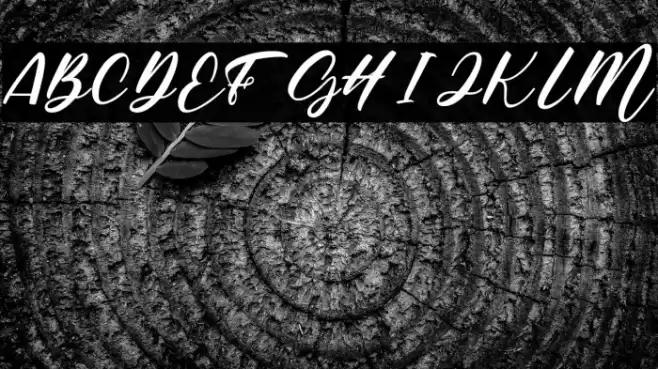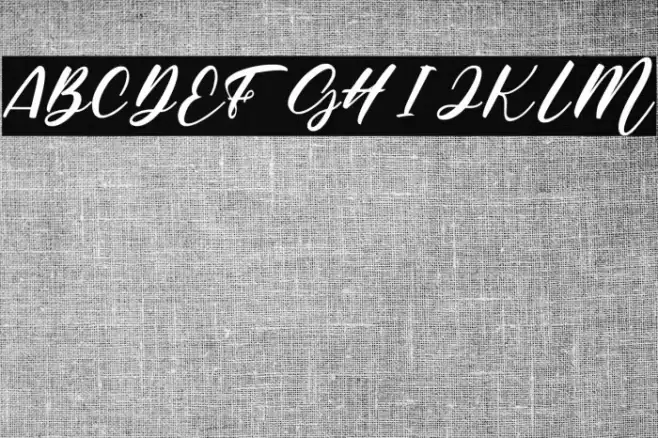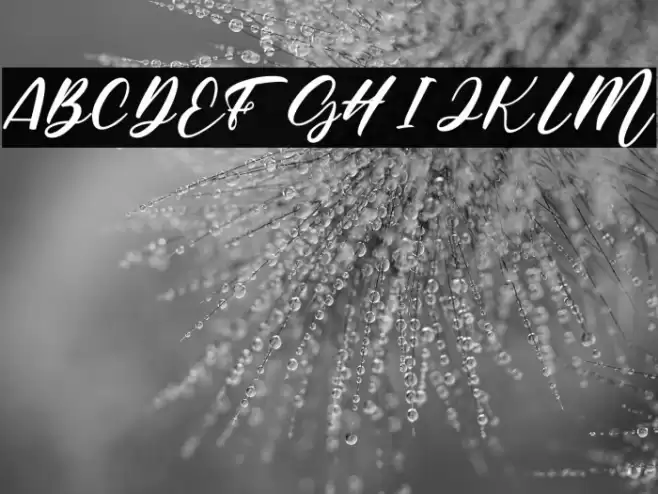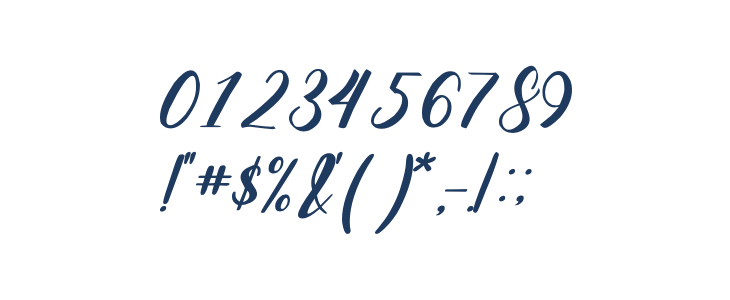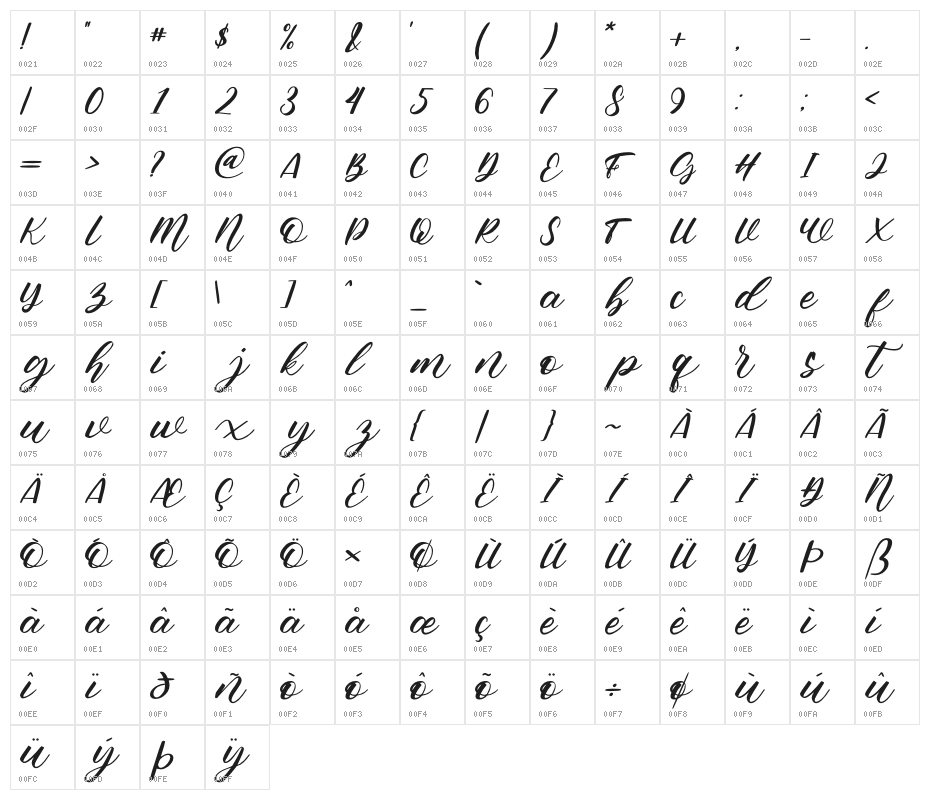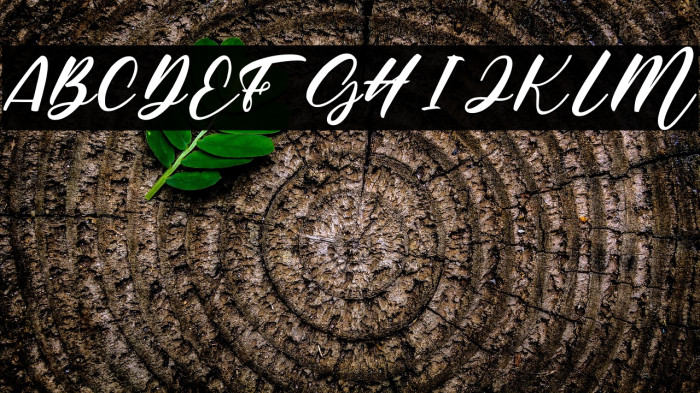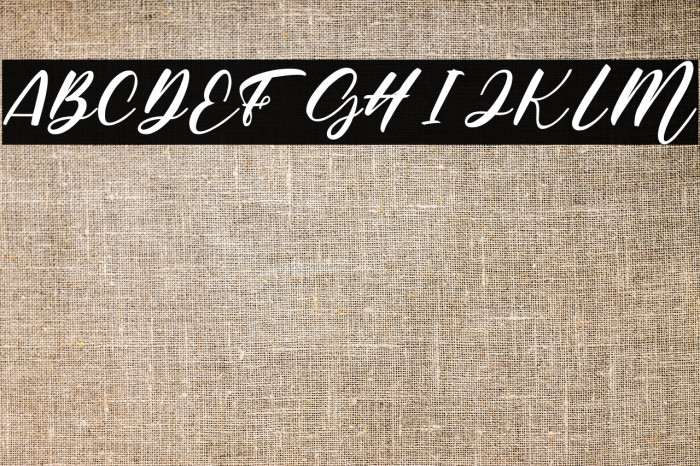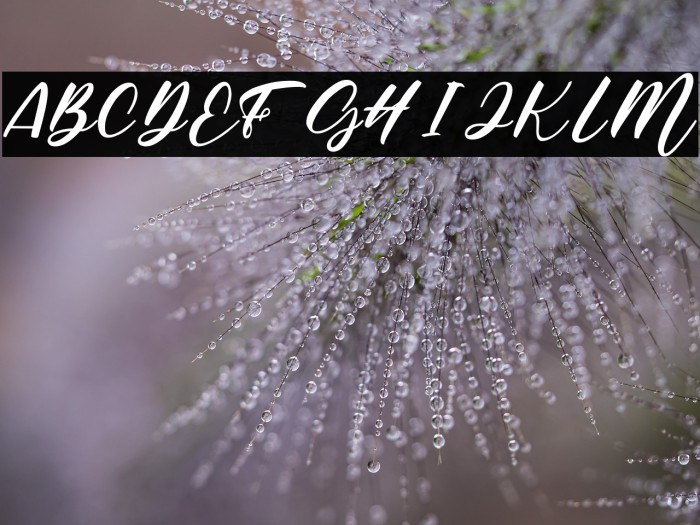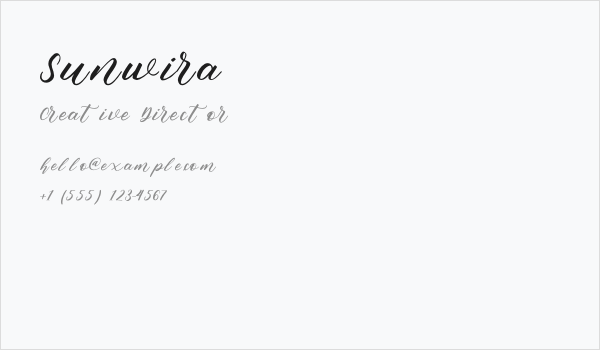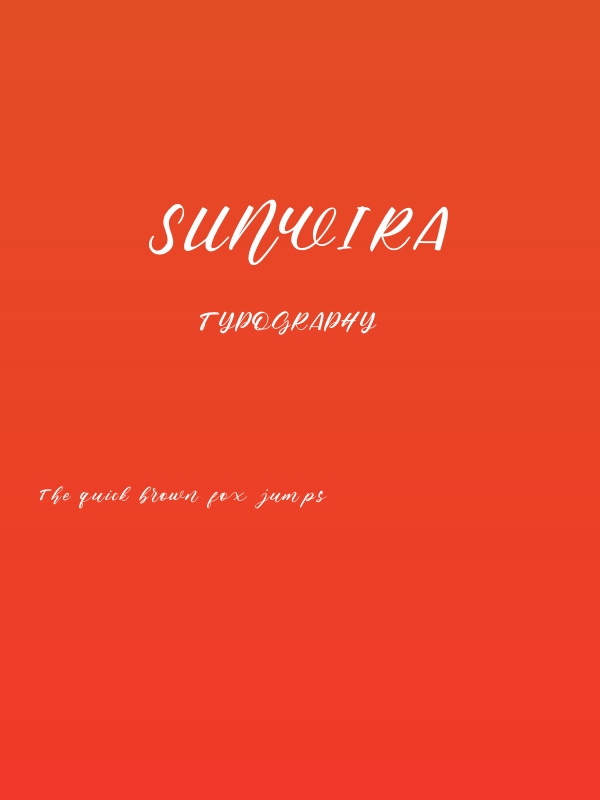
Sunwira Font
Sunwira Description
This font features a flowing, cursive style with a modern twist. The letters are elegantly connected, creating a sense of fluidity and movement. The strokes vary in thickness, adding a dynamic contrast that enhances readability while maintaining a stylish appearance. The uppercase letters are bold and prominent, while the lowercase letters are slightly more delicate, offering a harmonious balance. The numerals and special characters are designed with the same attention to detail, ensuring consistency across all elements. This font exudes a sense of sophistication and creativity, making it ideal for projects that require a touch of elegance.
A modern, cursive font with elegant, flowing strokes and dynamic contrast from Uncategorized fonts.
- Font: Sunwira
- Proposed Projects: Ideal for wedding invitations, branding, logos, and elegant packaging designs.
- Use Case: Logos, Invitations, Branding